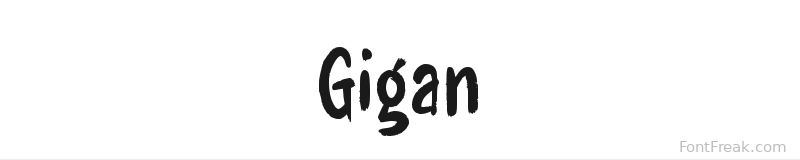
Gigan
About Gigan
Gigan, designed by Wahyu Eka Prasetya, is a distinctive display font that stands out for its playful and informal aesthetic. With its unique handwritten style, Gigan offers a warm and inviting feel, making it perfect for projects that require a personal touch. The font features medium stroke weight with a slight contrast that adds character without compromising legibility. The spacing between the letters is well-balanced, allowing for easy readability, while the slightly irregular shapes contribute to its hand-drawn charm.
This font is particularly well-suited for a variety of creative applications. It excels in wedding invitations, where its whimsical flair can beautifully convey romance and joy. Additionally, Gigan is ideal for children’s book covers, capturing the playful essence that appeals to young readers. Restaurant menus can benefit from its friendly appearance, enticing patrons with a warm welcome. Moreover, it can enhance social media graphics and marketing materials, helping brands connect with their audience on a personal level.
Targeting graphic designers, small business owners, and content creators, Gigan is a versatile choice for anyone looking to infuse their projects with personality and charm. Its free availability as freeware makes it accessible for various users, from hobbyists to professionals, who wish to elevate their designs without breaking the bank.
What truly sets the Gigan font apart is its ability to blend fun with functionality. With each letter carrying a sense of spontaneity, it invites creativity and innovation into any design. If you’re searching for a font that can bring a sense of warmth and individuality to your work, the Gigan font free download is an excellent choice that won’t disappoint.